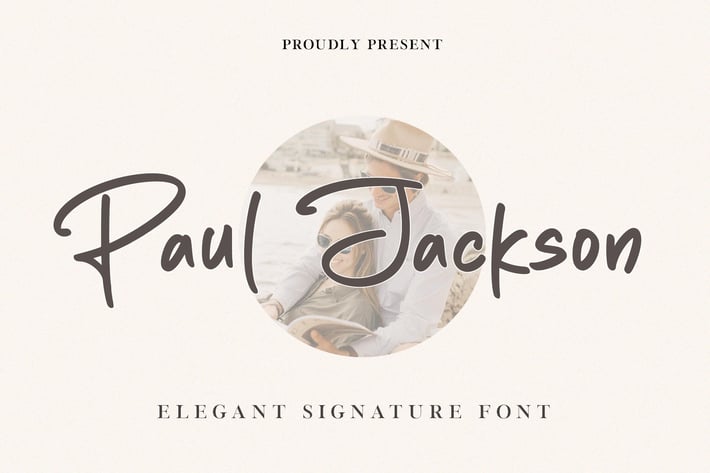
Paul Jackson Elegant Signature Font
Paul Jackson is super perfect signature font. It can easily be matched to an incredibly large set of projects like logo, package, advertisement, magazine, , so add it to your creative ideas and notice how it makes them stand out!